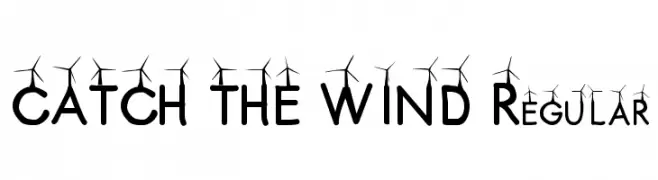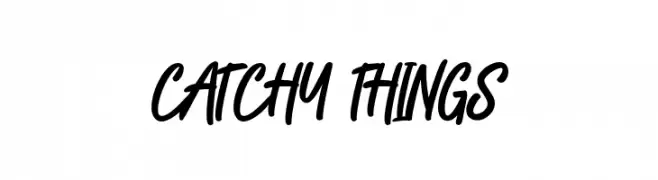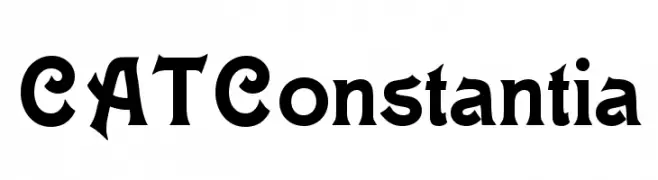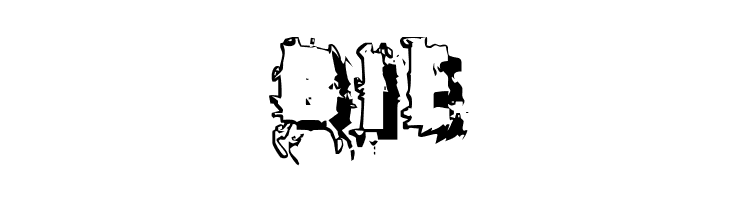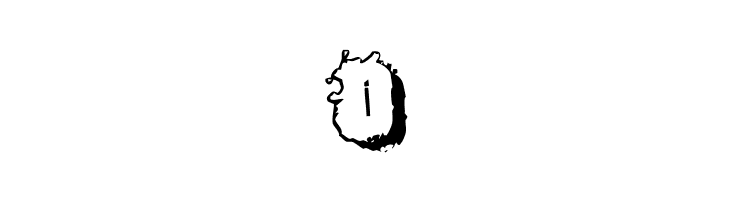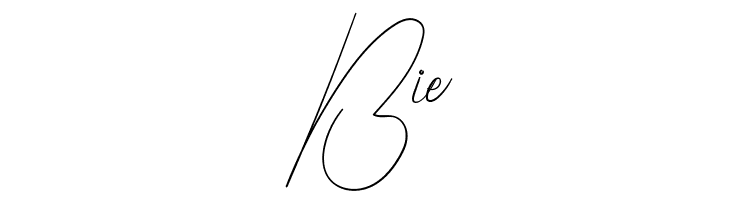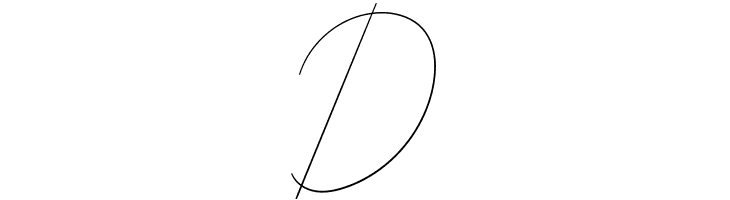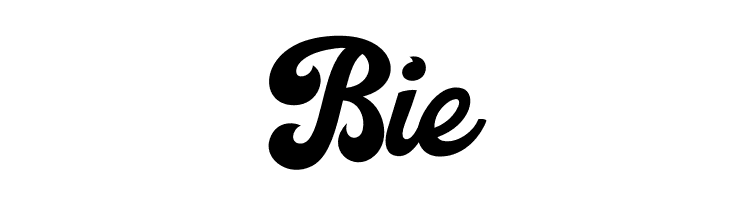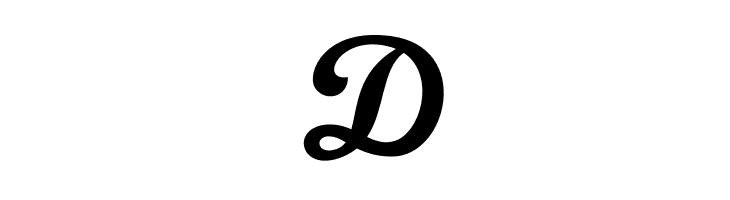
A bold, distressed font with a rugged, eroded appearance.
A playful font with wind turbine elements integrated into each character.
A graceful script font with flowing, thin strokes and elegant flourishes.
A bold, brush-style font with dynamic and flowing strokes.
A bold, elegant cursive font with high contrast and fluid strokes.
A playful, bold font with rounded, bubbly characters ideal for creative designs.
A bold, dynamic script font with a handwritten feel and smooth, flowing characters.
A modern, high-contrast font with elegant strokes and a stylish appearance.
A bold, gothic-style font with sharp, angular lines and a dramatic presence.